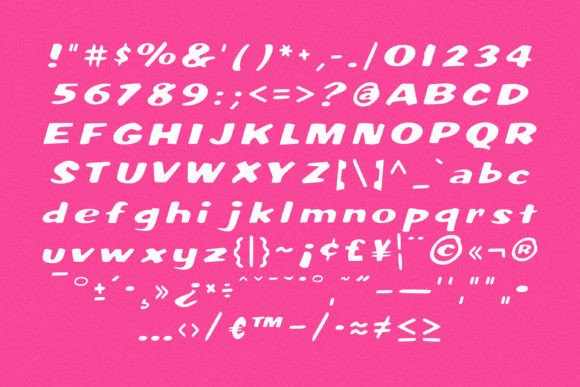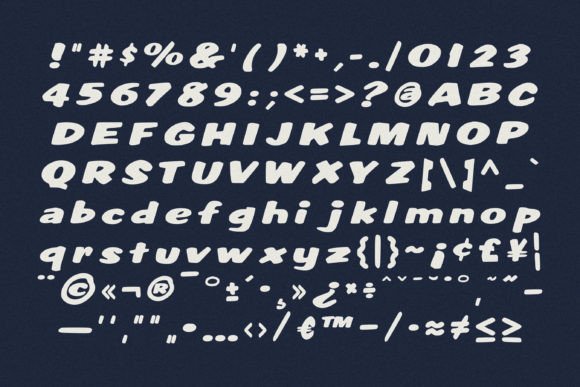
Introduction to Miami Font
Miami is a display marker-felt font that will make your creations stand out.
Use it on bold banners, posters, covers, social media posts, or anything alike .
Key Features of Miami Font